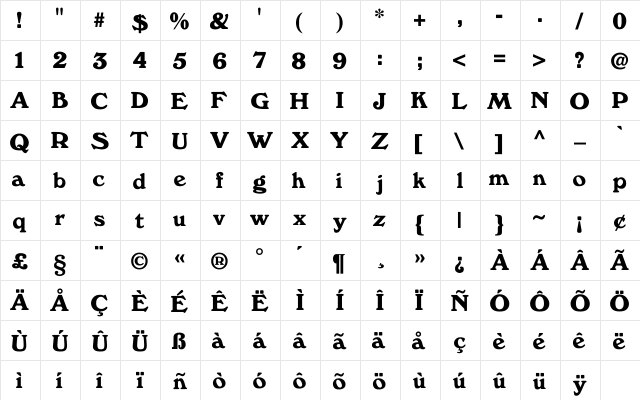
Windfall Regular
Design Context for Windfall Typeface
Windfall takes a measured approach to typography — its balanced proportions and neutral character make it a reliable workhorse for both digital and print work.